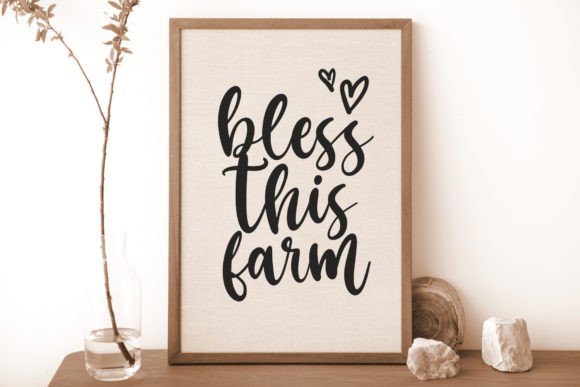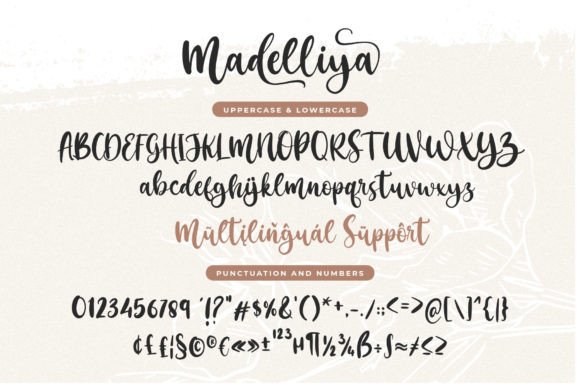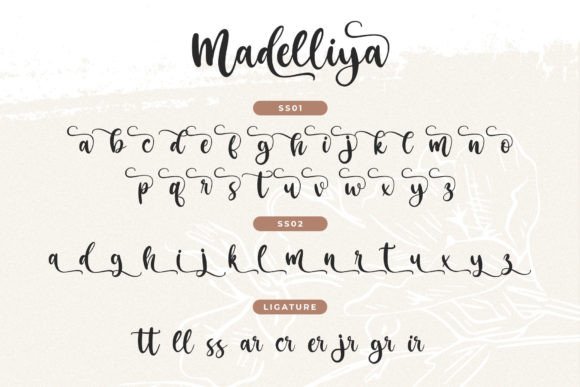
Madelliya Font
About Madelliya Font
**Madelliya** is the festive and stylish script font you’ve been searching for to elevate your next project. This exquisite font is an ideal choice for weddings, Christmas cards, letters, labels, or any design that requires a touch of romance and elegance.
The font’s festive and stylish script style is at the heart of its charm. It boasts stylish curves and graceful flourishes that exude a sense of sophistication and celebration. Whether you’re designing wedding invitations or crafting heartfelt Christmas greetings, **Madelliya** seamlessly adapts to various design contexts.
**Madelliya** is equally versatile in digital and print applications. Whether you’re incorporating it into digital designs or using it for printed materials, the font retains its festive and elegant character. Its readability ensures that your message is conveyed effectively, while its script style adds a touch of refinement.
What sets **Madelliya** apart is its ability to infuse a sense of romance and celebration into your designs. It invites your audience to immerse themselves in the festive spirit and connect with your creative ideas on a deeper level. With **Madelliya** as part of your creative toolkit, you have the means to craft designs that are not only elegant but also emotionally resonant, making them truly memorable.
**Madelliya** offers a range of customization options, allowing you to fine-tune your text to match your creative vision precisely. This flexibility empowers you to create designs that align perfectly with your artistic preferences.
In conclusion, **Madelliya** is more than just a font; it’s a design asset that enhances your creative projects with festive charm, romance, and a touch of elegance. Embrace its stylish script style, and let it inspire you to create designs that capture the essence of celebration and sophistication. With **Madelliya** at your disposal, your creative possibilities are expansive, enabling you to craft memorable and emotionally resonant works of art through its festive and captivating typography.